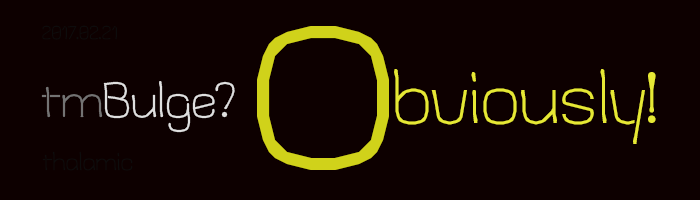
• I've been wanting to do this kind of font for ages, think of it as a soft square or a hard circle. Since it's been so long, I can't really remember the exact source of inspiration, but I do remember it had something to do with kix and his work.
Great work and so different from your other fonts...
Why is the underscore an M?
@CoolPenguin11 It's most likely an alternate m...
@Se7enty-Se7en but what if you wanted to add an actual underscore?
@CoolPenguin11 They could move the alternate M to another glyph slot...
Sorry, could you move the alternate glyphs to the Private Use Area? That's a more appropriate place to put them.
@Europe2048: He doesn't have to do that, the font is already finished, don't make more work for him.